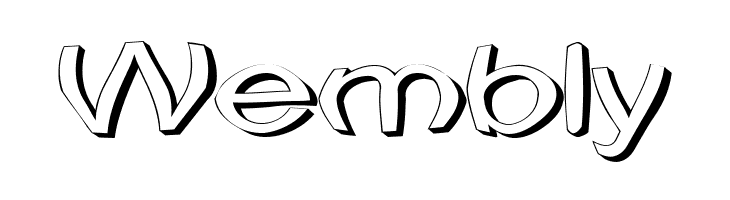
Round About Italics Font
- Font: Round About Italics
- Weight: Italics
- No. of Characters:: 105
A playful, 3D-effect font with bold, rounded characters and a whimsical style.